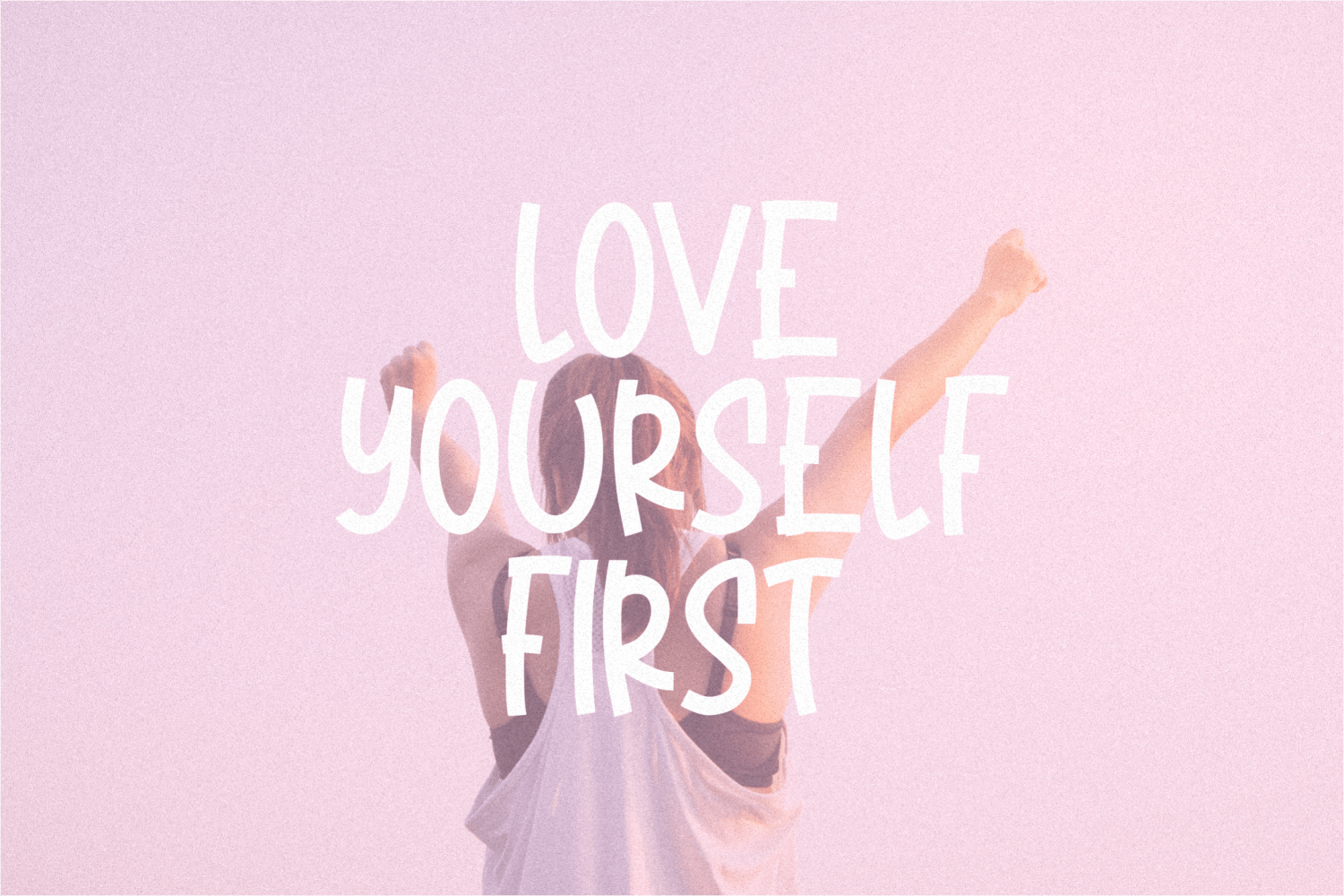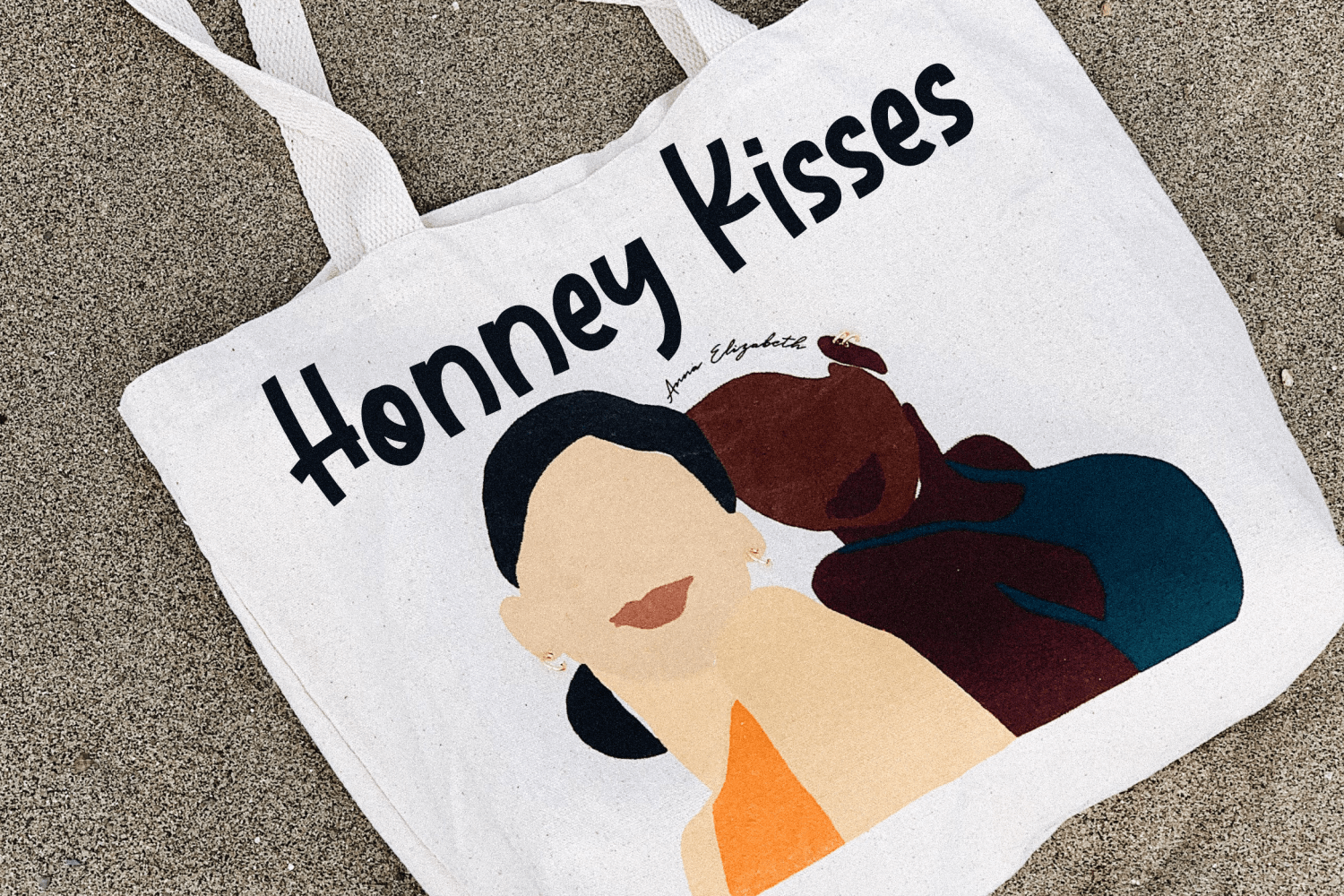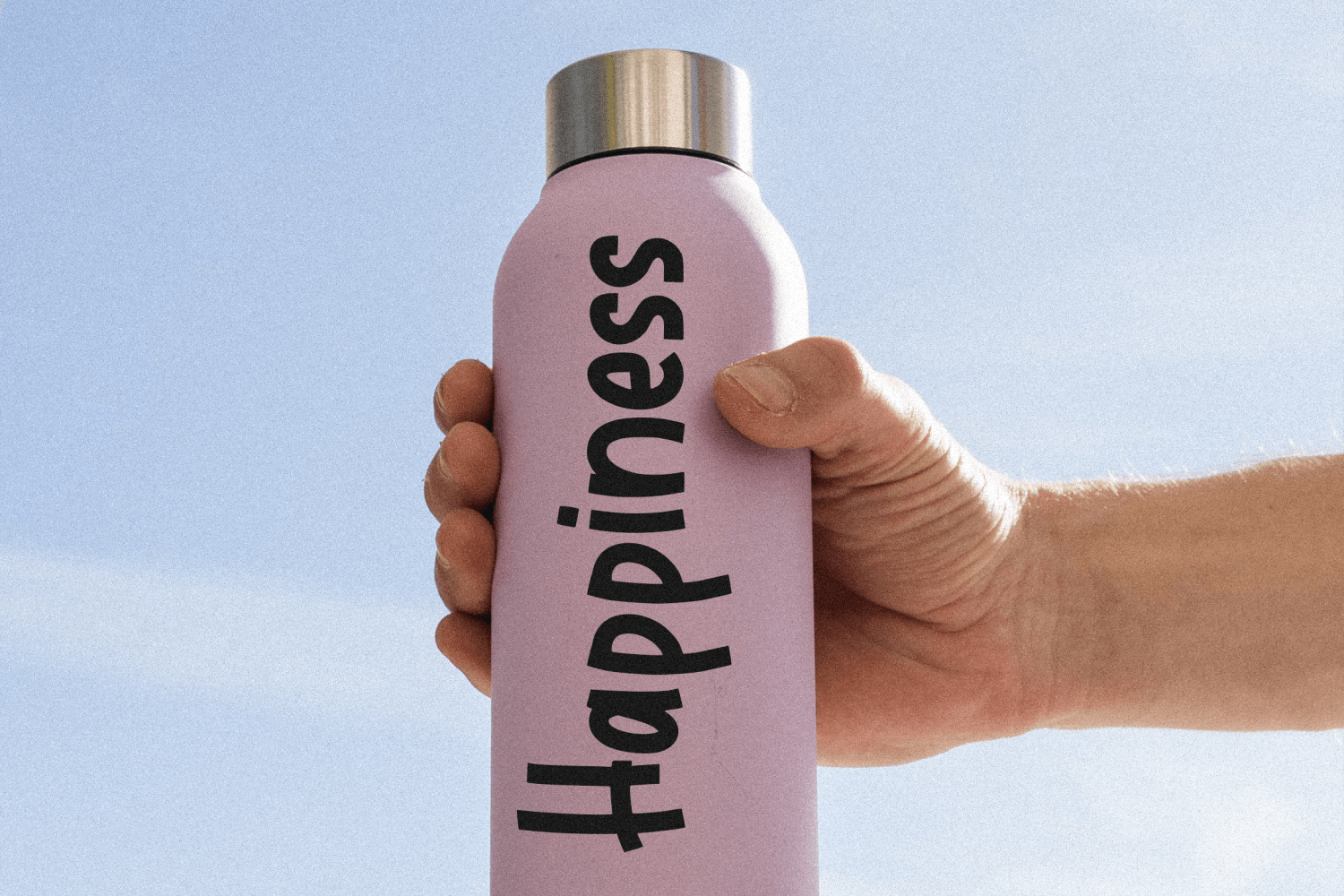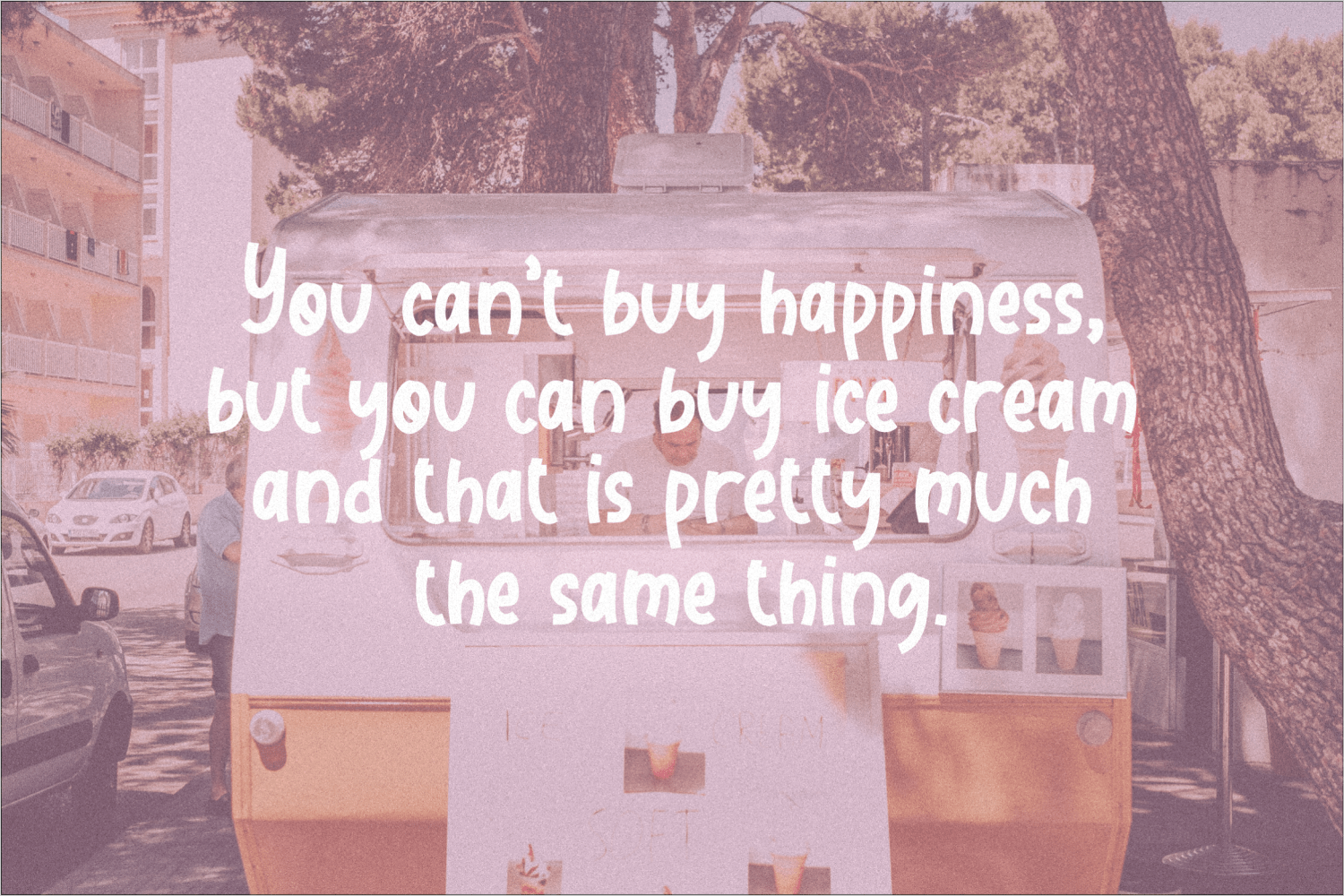
Harmony Rainbow Font
Harmony Rainbow Display Font
It’s a display font created with a brush and ink. Harmony Rainbow is perfect for product packaging, logo, invitation, stationery, branding project, label, photography, watermark, megazine, social media post, wedding, or just used to express words above the background.